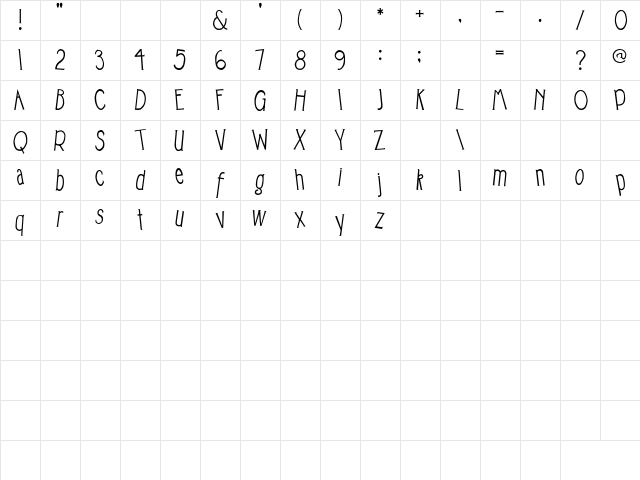
2Peas Rocky Shore Regular
Design Context for 2Peas Rocky Shore Typeface
2Peas Rocky Shore is a composed and adaptable typeface that performs quietly and consistently across a wide range of design contexts.